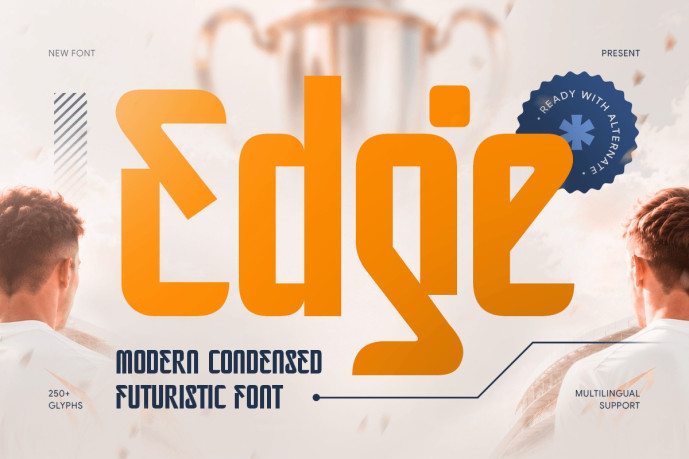
Edge – Modern Condensed Futuristic Font
Edge is a modern condensed futuristic font designed to deliver innovation, precision, and cutting-edge visual impact. Featuring sleek narrow letterforms, sharp geometric details, and a futuristic aesthetic, Edge is perfect for technology branding, logos, digital interfaces, gaming visuals, posters, and forward-thinking creative projects.
Blending contemporary condensed typography with sci-fi inspired design, Edge creates a bold and memorable visual identity. Its streamlined structure ensures excellent readability while maintaining a high-tech and dynamic appearance, making it ideal for startups, technology companies, esports, digital products, and modern branding solutions.
Edge – Modern Condensed Futuristic Font Features:
Modern condensed style with futuristic aesthetics
Sharp geometric letterforms with high-tech character
Ideal for logos, branding, interfaces, posters, and digital media
Uppercase, lowercase, numerals, and punctuation included
Excellent readability with space-efficient construction
Perfect for technology, gaming, startups, and innovative branding
Step into the future with Edge – the modern condensed font crafted for bold technology and futuristic design.